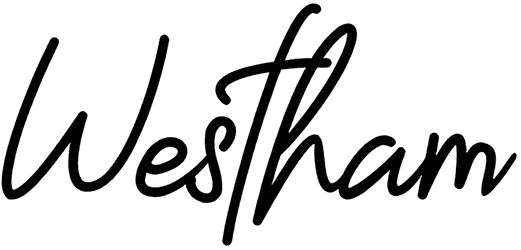
Westham Font
Even if you have hundreds of script fonts in your collection, there will still be an empty space for Westham. This handwritten font is the best way for designers who are interested in implementing organic projects and want to choose a font that has inherent decorations.
Using this handwritten font, you can prepare a unique wedding card for this memorable night or design a hearty greeting next to the Christmas tree for your loved ones.